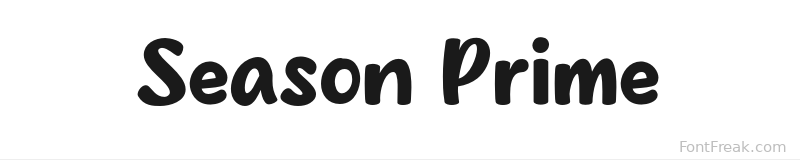
Season Prime
Season Prime by MJType is a versatile display font that beautifully merges contemporary design with a playful aesthetic. This font boasts a unique handwritten style, characterized by its fluid strokes and friendly curves that invite engagement. The stroke weight is moderately thick, providing a robust presence while maintaining an approachable feel. With well-balanced spacing, Season Prime ensures legibility and charm, making it a fantastic choice for various design projects.
The visual appeal of Season Prime lies in its decorative elements, which add a whimsical touch without overwhelming the viewer. This makes it suitable for a variety of creative applications. Whether you are designing wedding invitations that require a touch of elegance, crafting eye-catching movie posters that demand attention, or creating restaurant menus that need to convey warmth, Season Prime fits the bill perfectly. Additionally, it works well for social media graphics and branding materials, making it a favorite among content creators and small business owners.
Targeted towards graphic designers and entrepreneurs, Season Prime offers an opportunity to elevate any project with its unique characteristics. Its friendly demeanor and artistic flair make it an excellent choice for those looking to make a memorable impression.
What sets Season Prime apart from other fonts is its ability to balance creativity with functionality. The font maintains a lighthearted essence while ensuring that your message remains clear and engaging. With its Freeware license, users can take advantage of the Season Prime font free download to enhance their projects without any financial commitment. This font is not just a typeface; it’s a tool for expression and creativity that stands out in any design landscape.